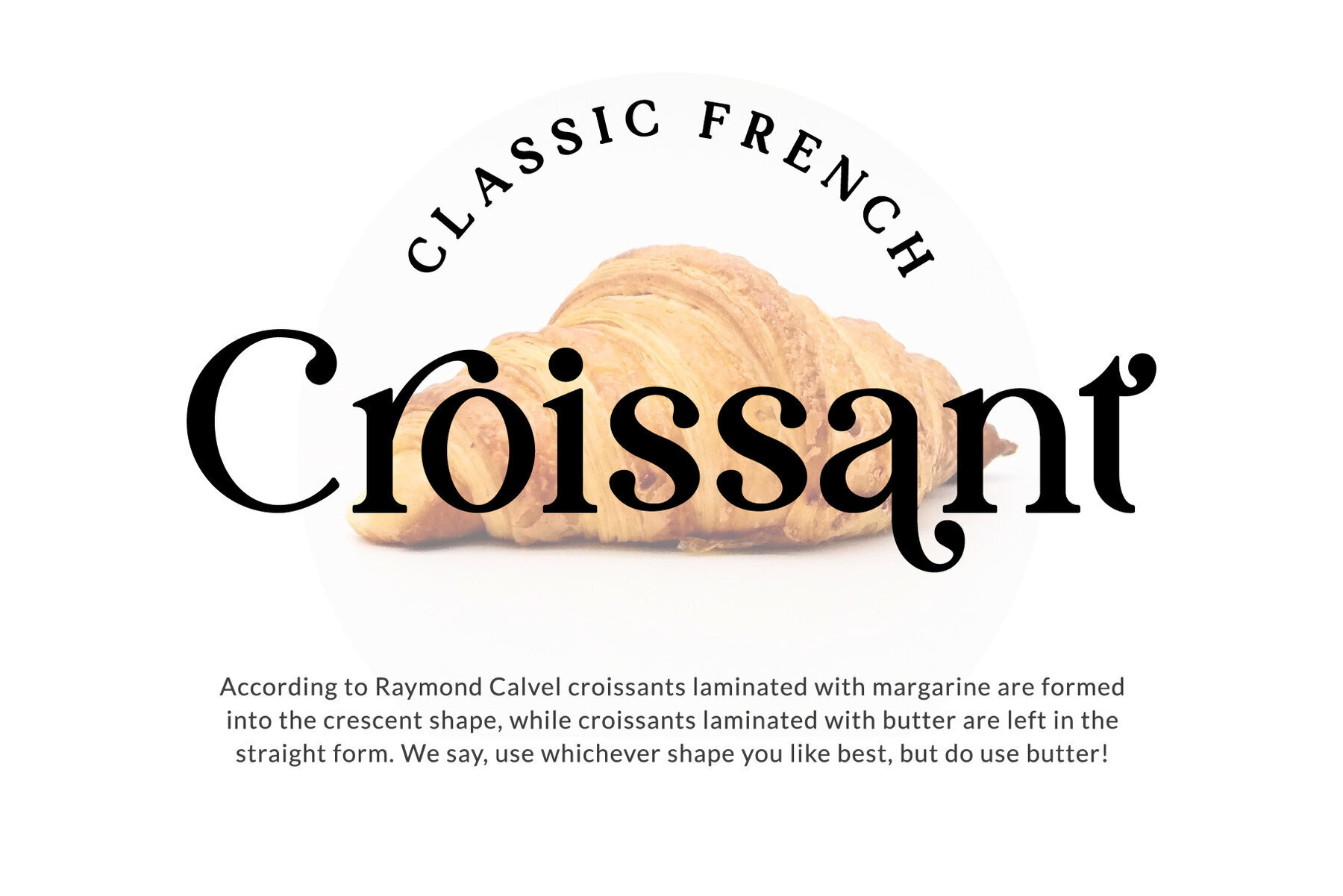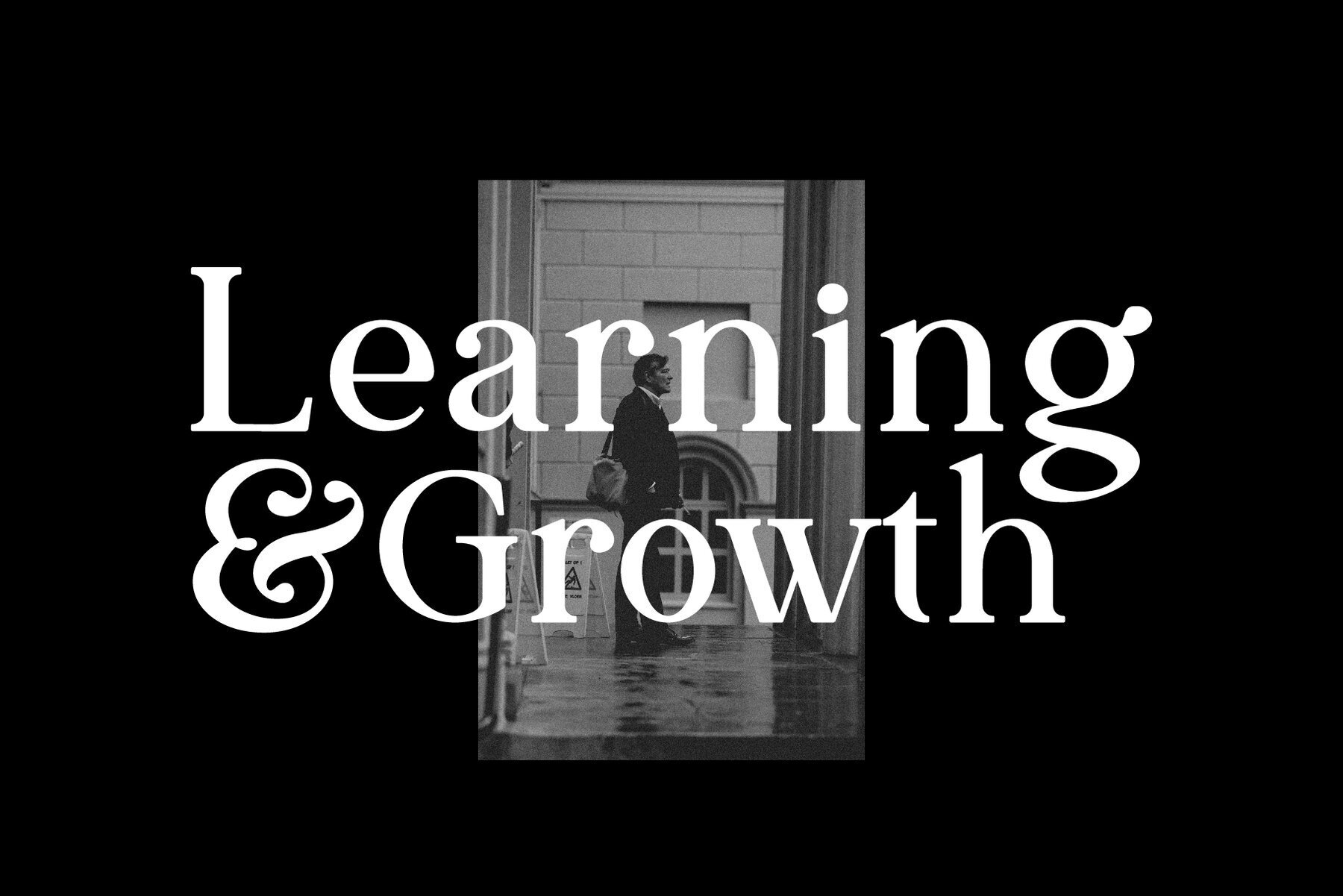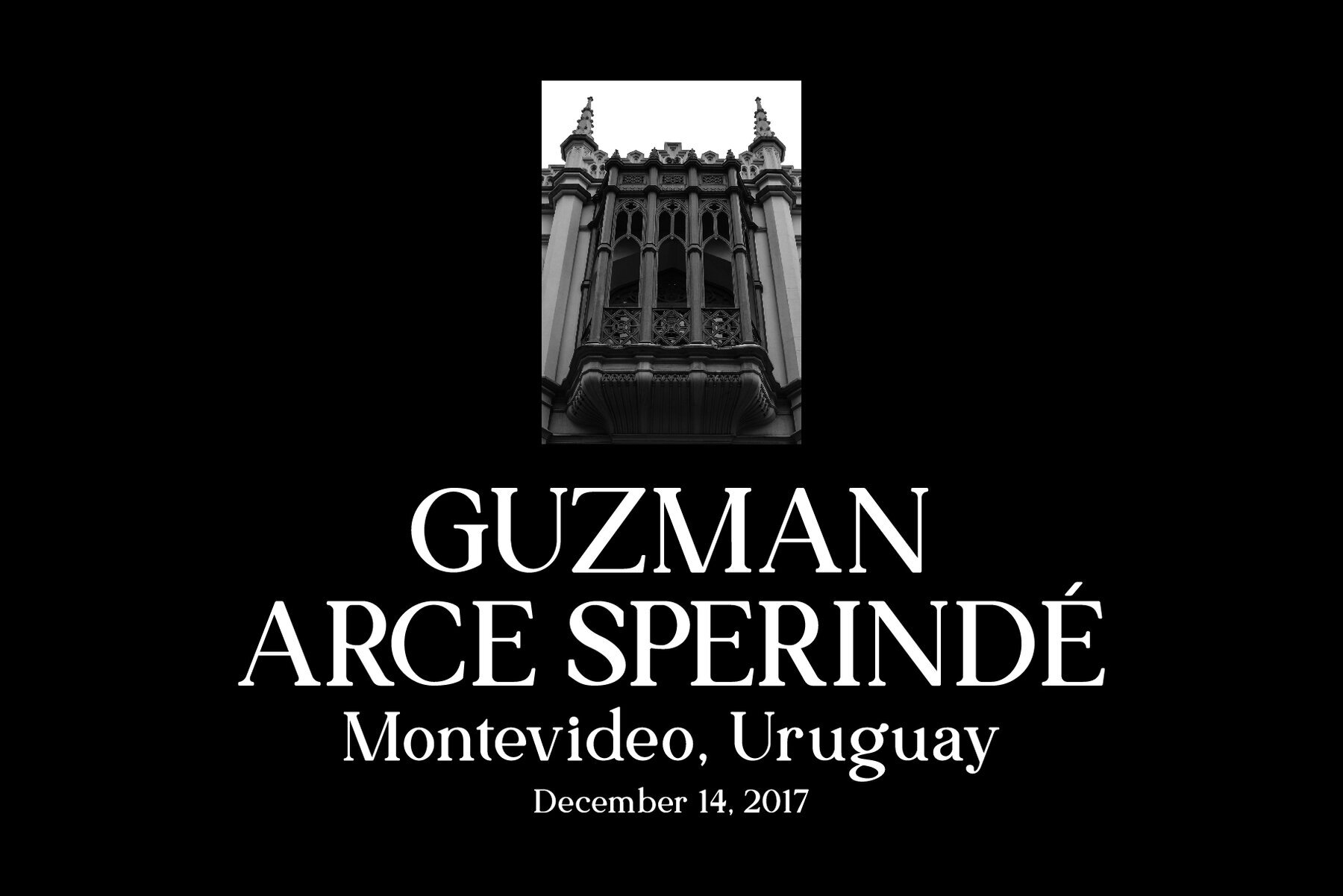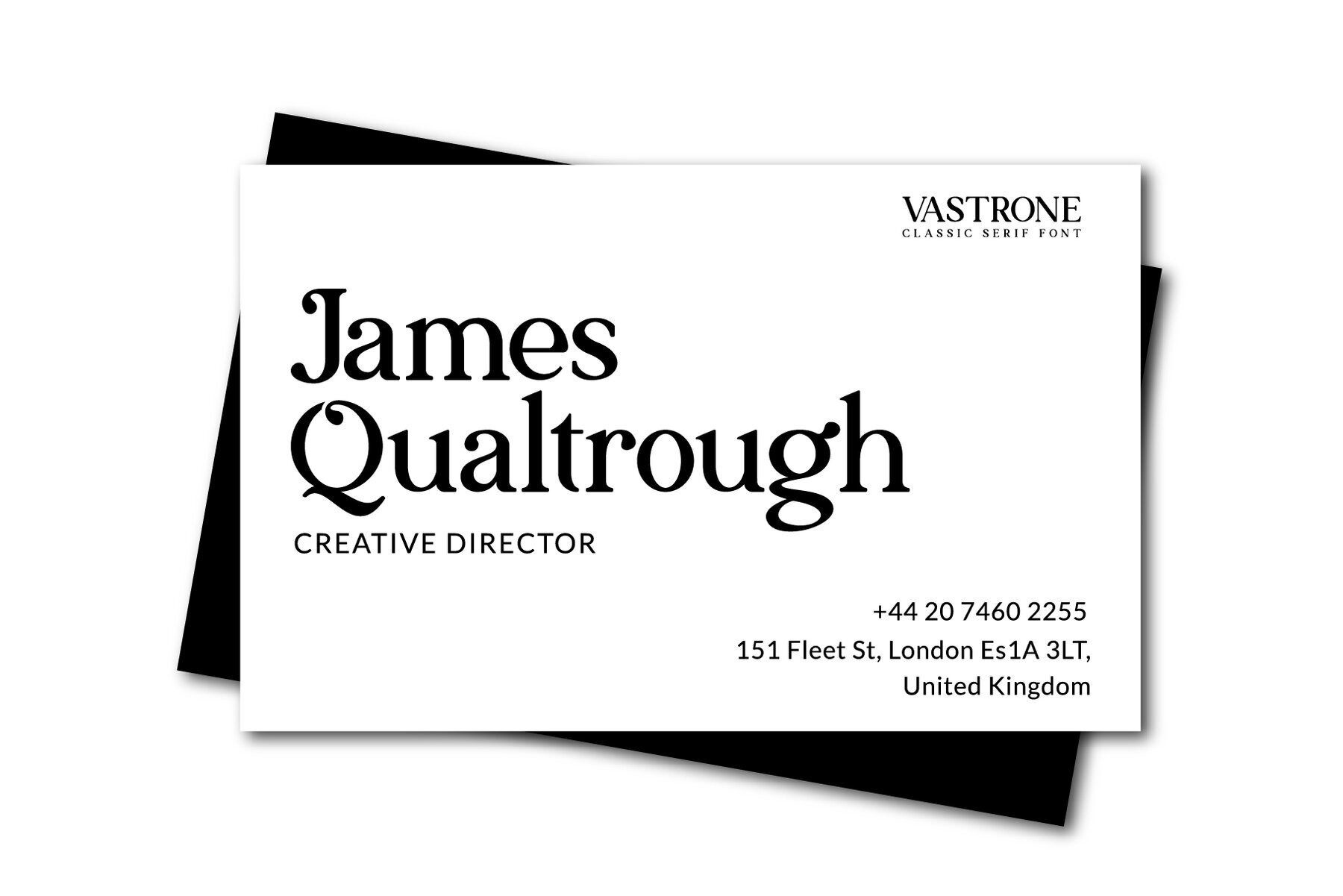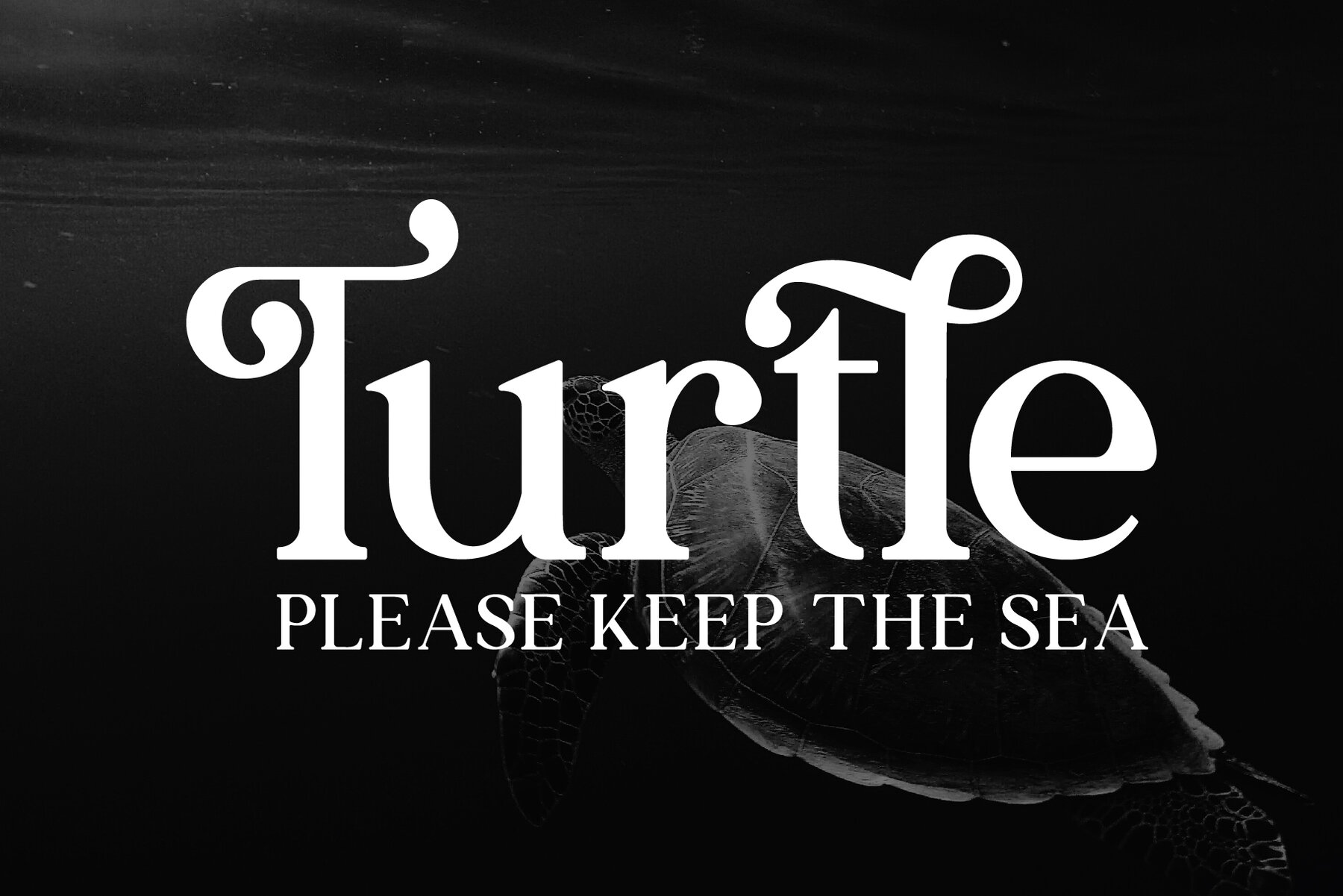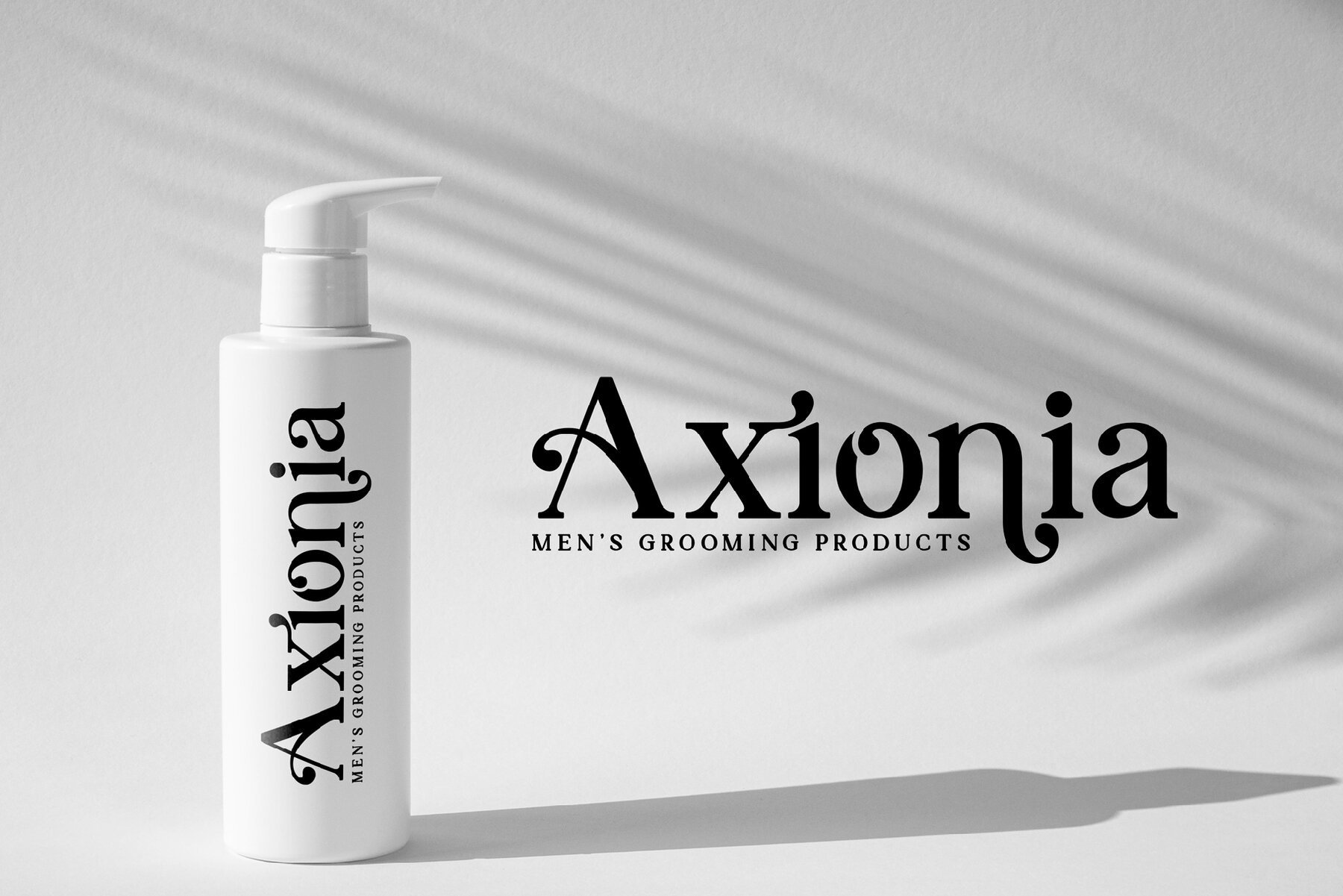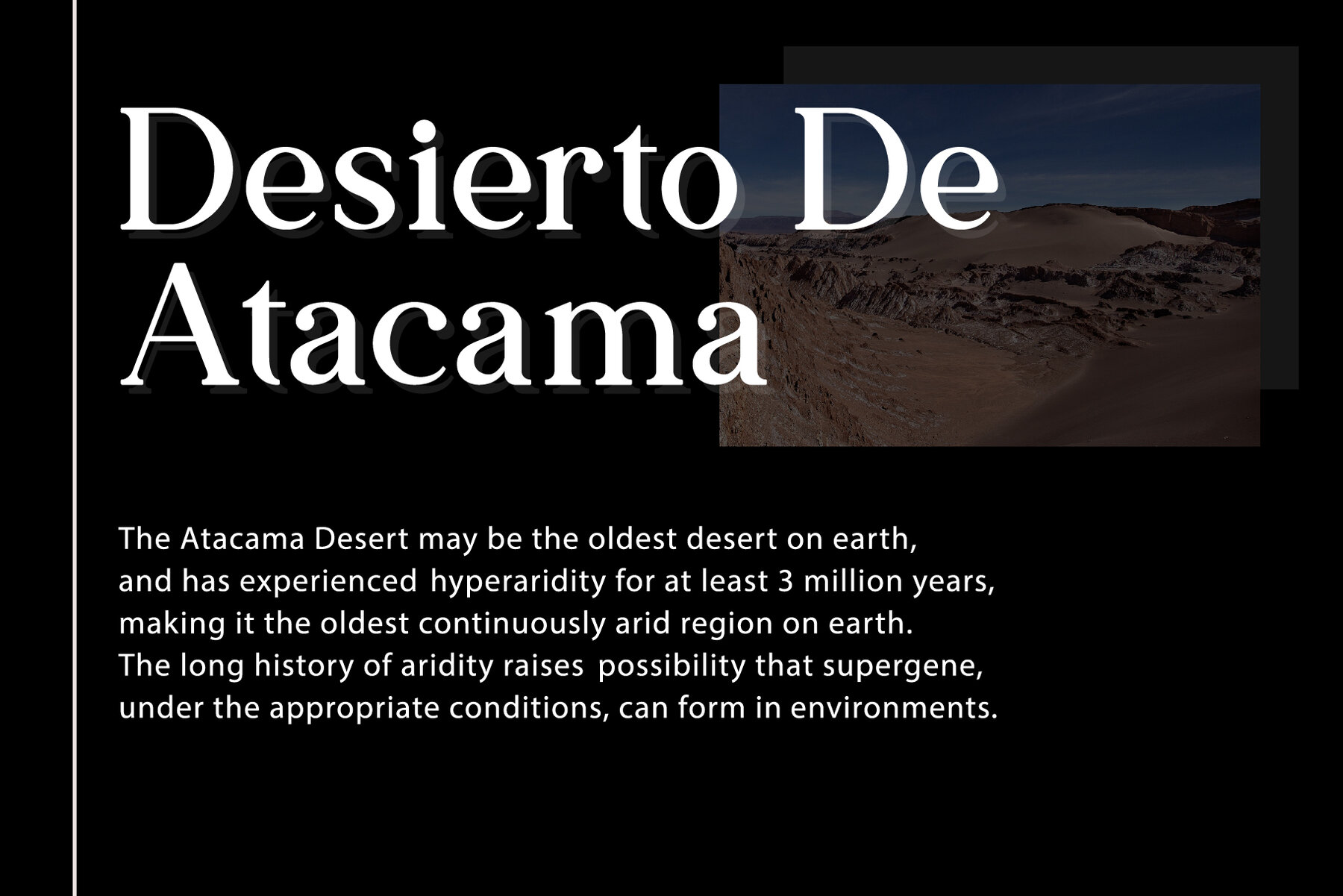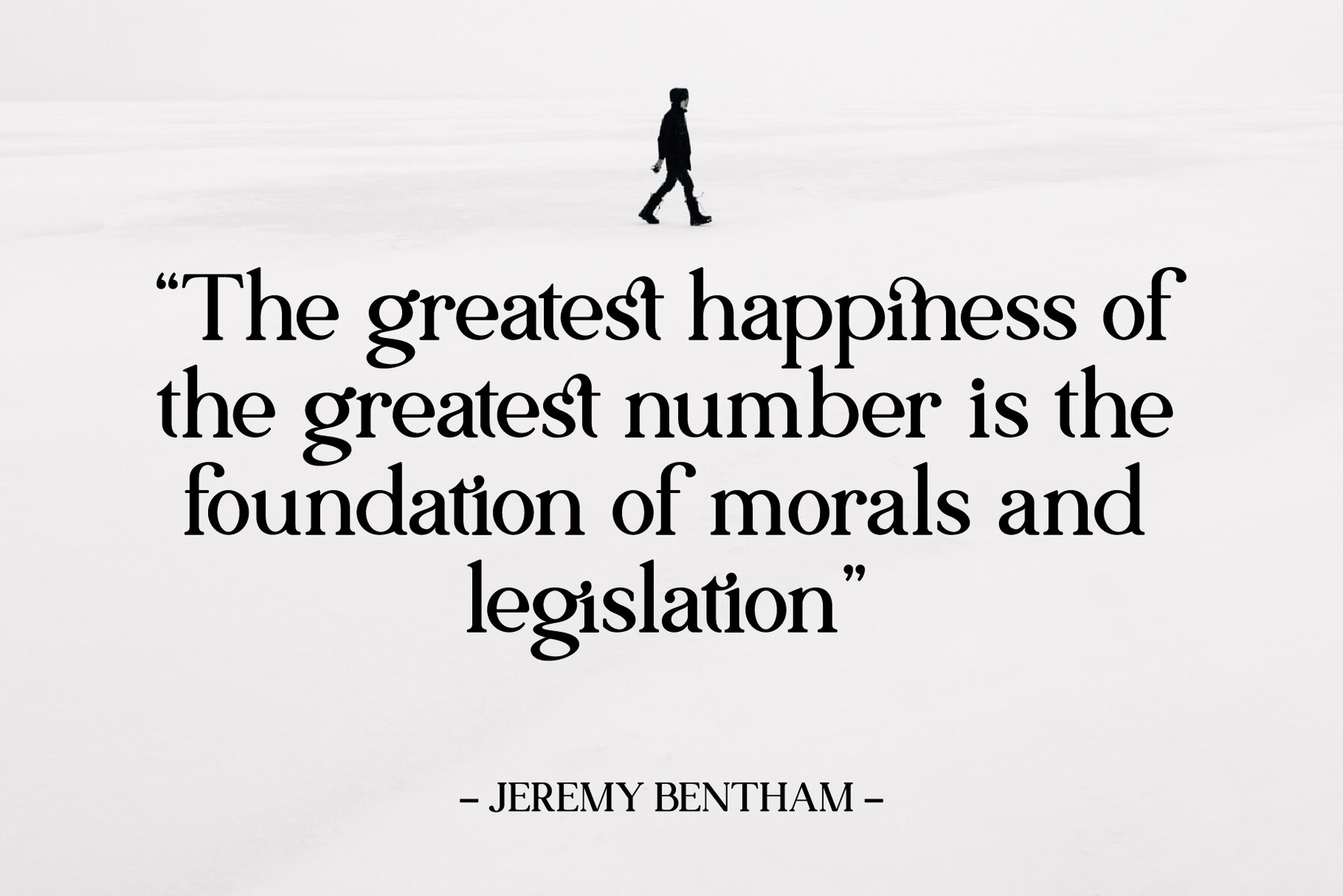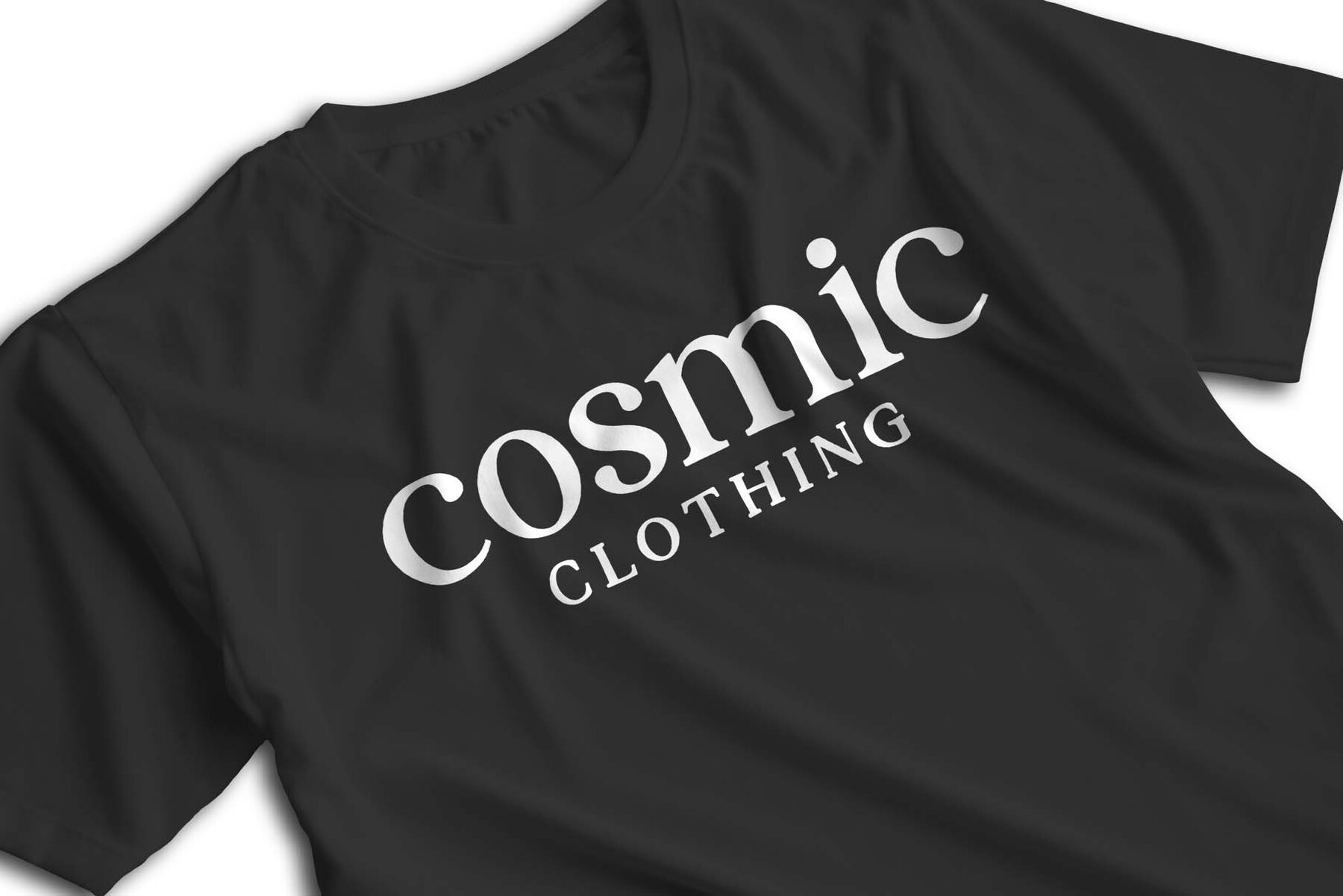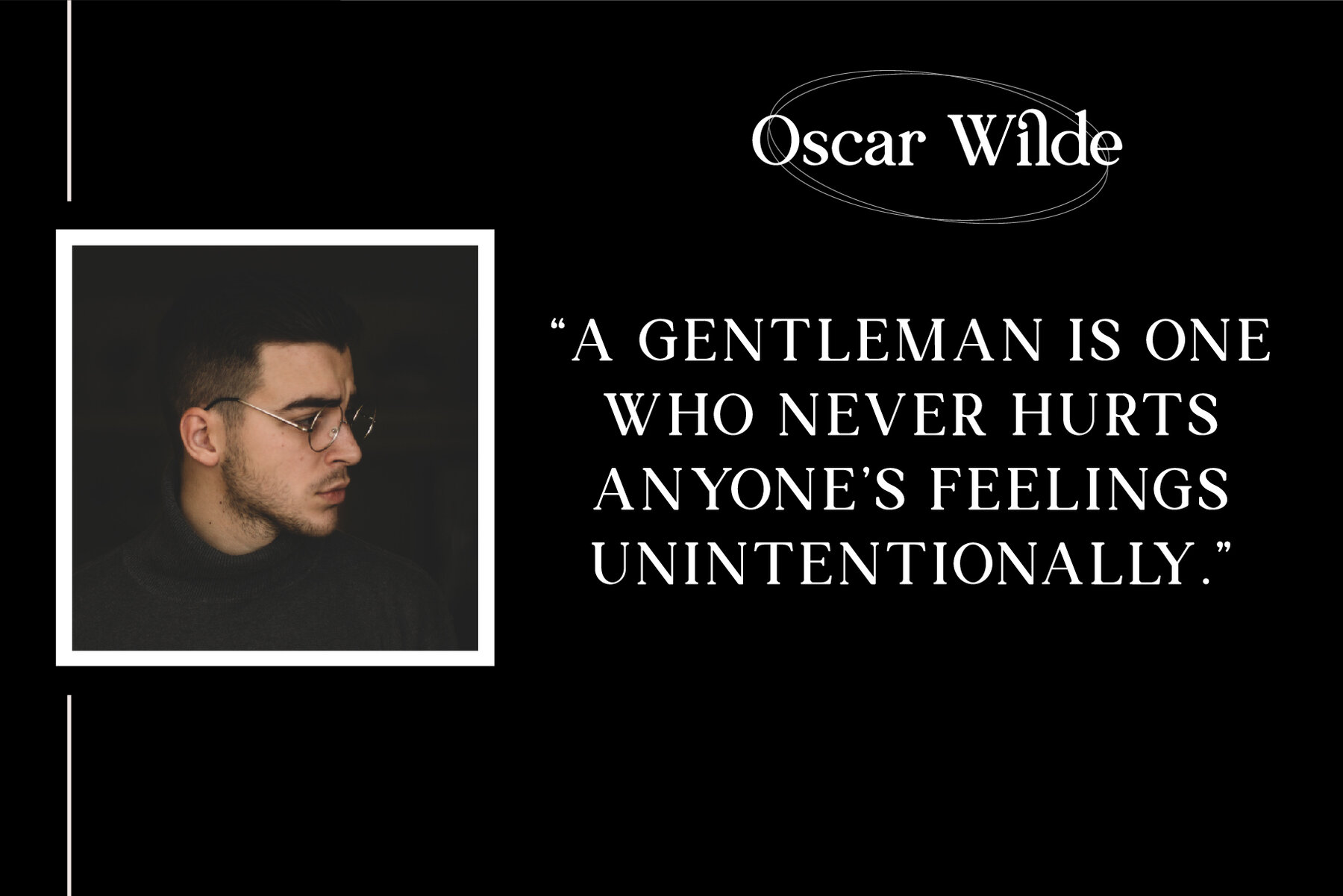
Vastrone Font
This is a professional and classic styled font with 62 alternatives and 21 ligatures with 4 styles. very special for those of you who are looking for fonts to design the covers of novels, magazines, and films, or also as logos and quotes.